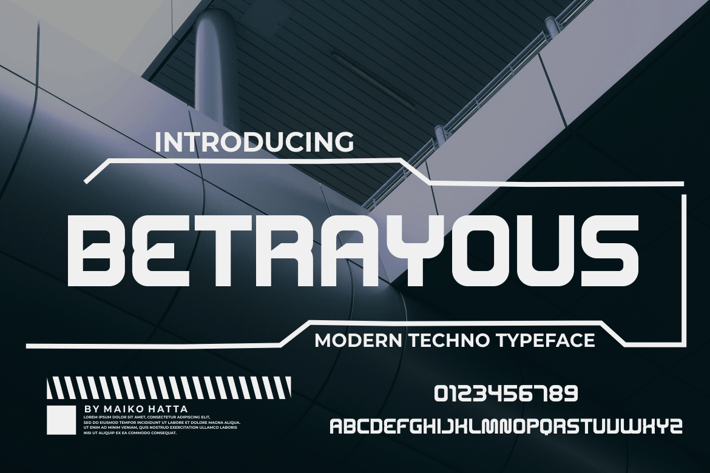
BETRAYOUS FONT
Introducing our new product BETRAYOUS FONT - Modern Font
BETRAYOUS FONT - Modern Font is a bold and authentic display font. The font is suitable for any branding project like logo, t-shirt printing, esport, and many more. outstanding in a wide range of contexts.